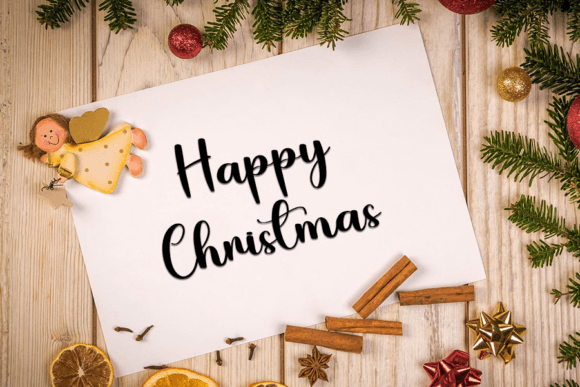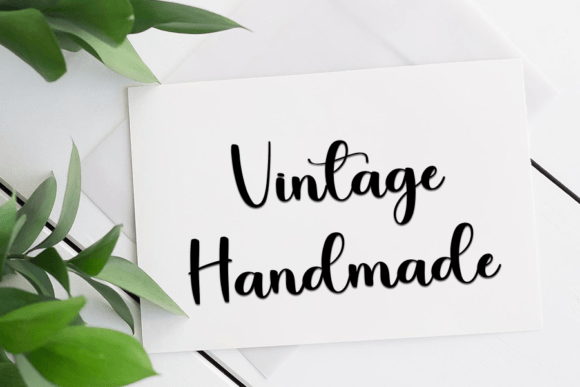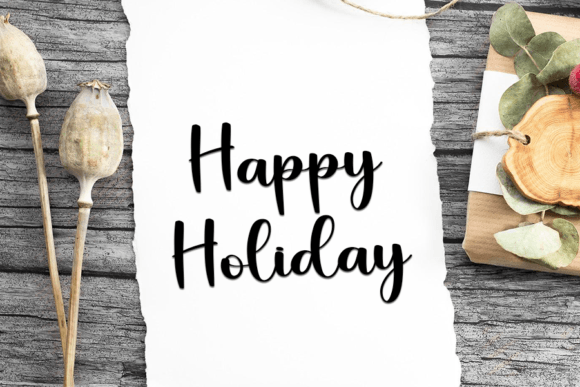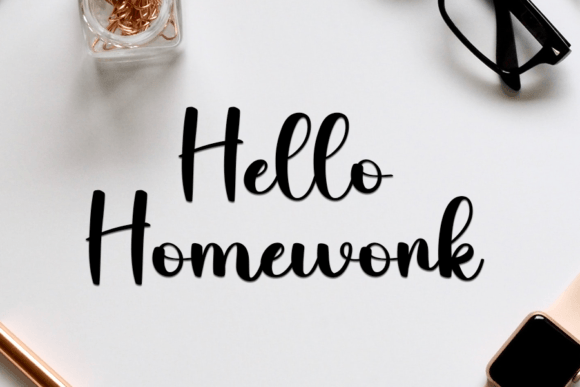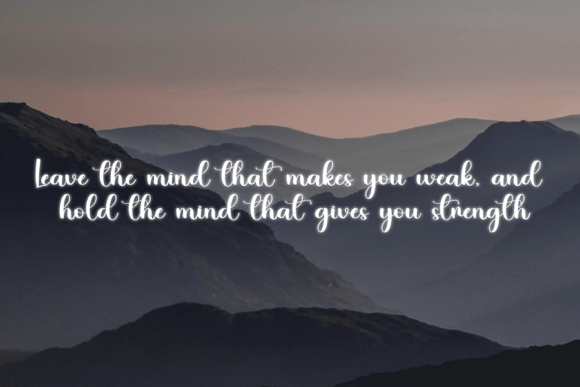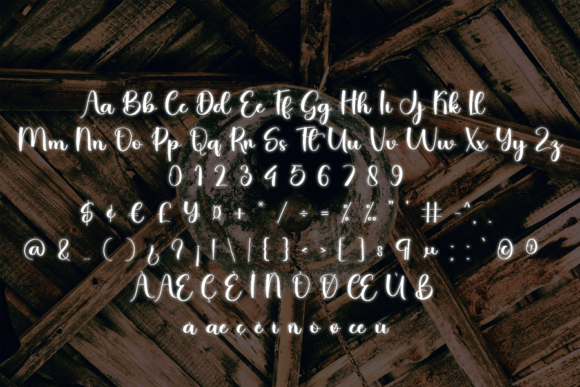
Bell Font: A Delicate Handwritten Font for Unique Designs
Bell Font is a beautiful, delicate handwritten font that has been carefully crafted to add a touch of elegance and uniqueness to your designs. With its cool and distinctive style, this font is perfect for a wide range of applications, from writing letters and invitations to creating titles and labels for food products.
What Makes Bell Font Special?
Bell Font is a true gem for designers and crafters looking for a font that can add a personal touch to their work. Its delicate and handwritten style gives it a warm and inviting feel, making it perfect for designs that require a touch of sophistication and elegance. Whether you’re creating wedding invitations, writing letters to loved ones, or designing labels for your food products, Bell Font is sure to impress.
Uses of Bell Font
Bell Font is a versatile font that can be used in a variety of ways. Here are some of the most popular uses of this beautiful font:
- Writing Letters and Invitations: Bell Font is perfect for writing letters and invitations. Its delicate and elegant style makes it ideal for formal and informal correspondence.
- Food Products: If you’re a food blogger, chef, or food product owner, Bell Font is a great choice for creating labels and titles for your products. Its unique style will add a touch of personality to your branding.
- Titles and Headings: Bell Font can be used to create beautiful titles and headings for your designs. Its elegant style makes it perfect for adding a touch of sophistication to your work.
- DIY Projects: If you’re a crafter or DIY enthusiast, Bell Font is a great choice for your projects. You can use it to create beautiful signs, labels, and other decorative elements.
Why Choose Bell Font?
There are many reasons why Bell Font is a great choice for designers and crafters. Here are some of the benefits of using this font:
- Unique Style: Bell Font has a unique and distinctive style that will set your designs apart from others.
- Elegant and Sophisticated: This font has an elegant and sophisticated feel that makes it perfect for formal and informal designs.
- Versatile: Bell Font can be used in a variety of ways, from writing letters and invitations to creating titles and labels.
- Easy to Read: This font is easy to read, making it perfect for designs that require a clear and legible text.
Tips for Using Bell Font
Here are some tips for using Bell Font in your designs:
- Use it with a Simple Background: Bell Font looks best with a simple background. Avoid using it with busy or patterned backgrounds that may distract from the text.
- Experiment with Colors: This font looks great in a variety of colors. Experiment with different colors to find the one that works best for your design.
- Use it for Headings and Titles: Bell Font is perfect for headings and titles. Use it to add a touch of elegance and sophistication to your designs.
- Pair it with Other Fonts: You can pair Bell Font with other fonts to create a unique and interesting design. Experiment with different font combinations to find the one that works best for your project.
Bell Font is a beautiful and delicate handwritten font that is perfect for designers and crafters looking for a unique and elegant style. With its versatile uses and benefits, this font is sure to become a favorite in your design collection. Whether you’re creating letters, invitations, food labels, or titles, Bell Font is a great choice for adding a touch of sophistication and elegance to your designs.